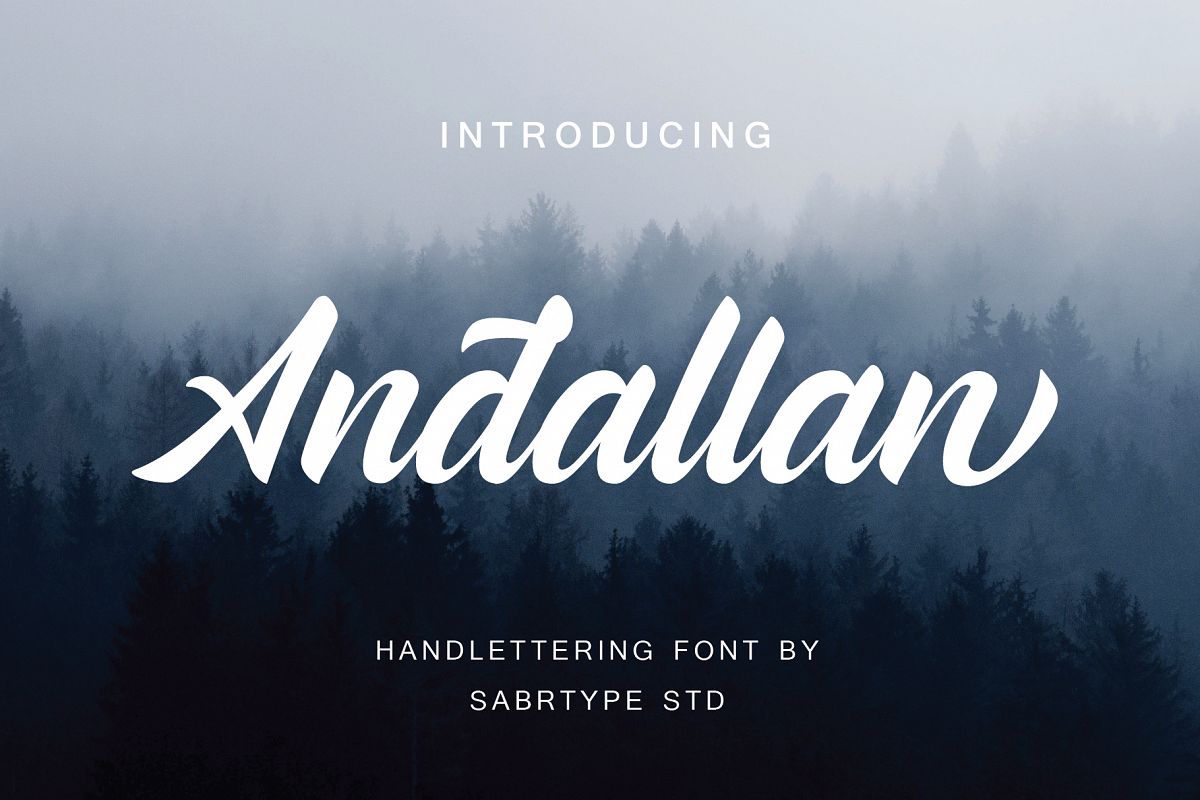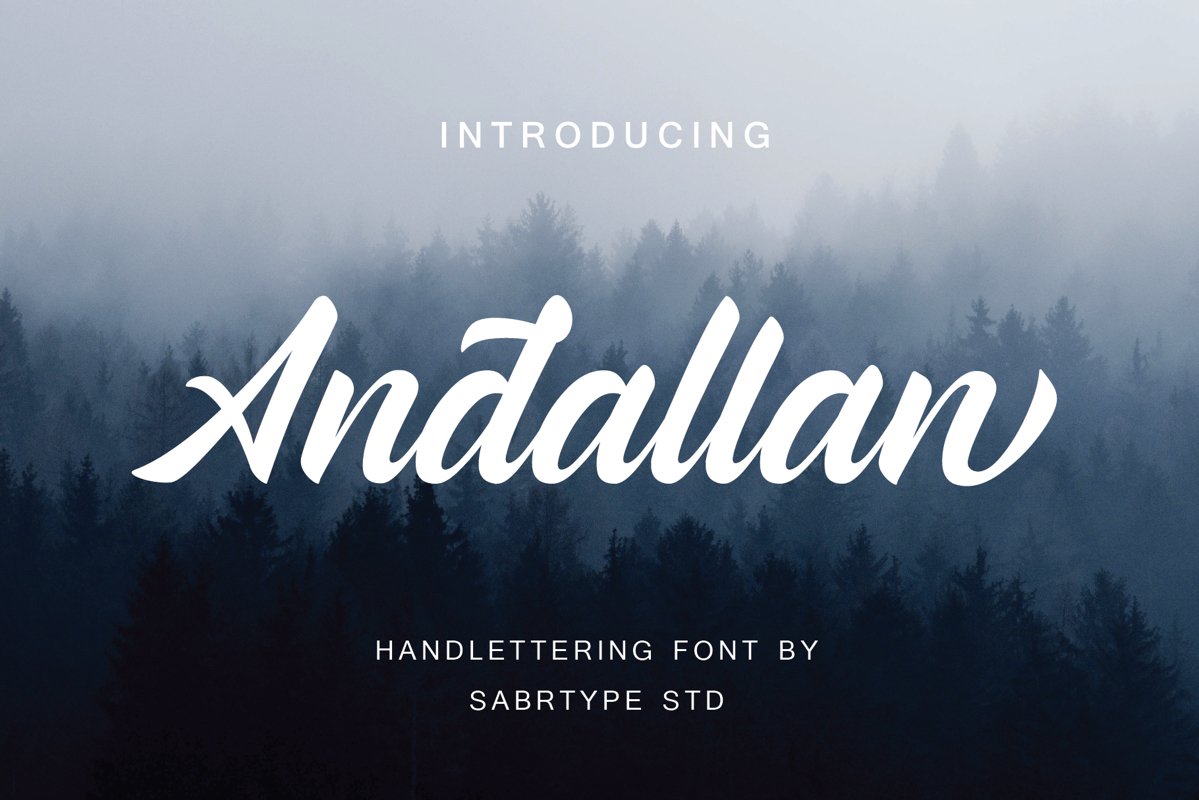
Created By Sabrcreative
Andallan
Andallan is a font with stylish handlettering and very smooth, clean. very suitable for logos, printed quotes, invitations, cards, product packaging, headers, Logotype, Letterhead, Poster, Apparel Design, Label, and etc
Basic Latin A-Z and a-z
Numbers
Symbols
Stylistic Set
Ligature